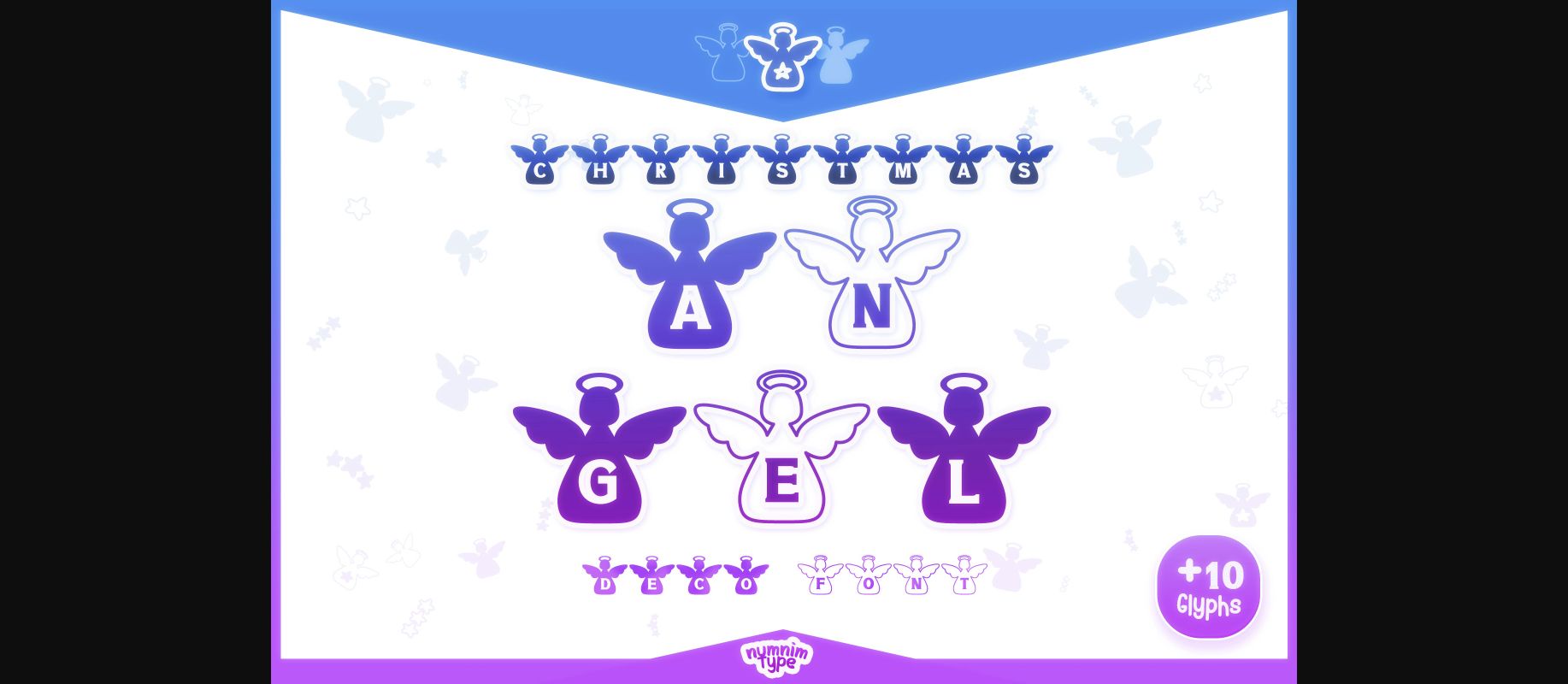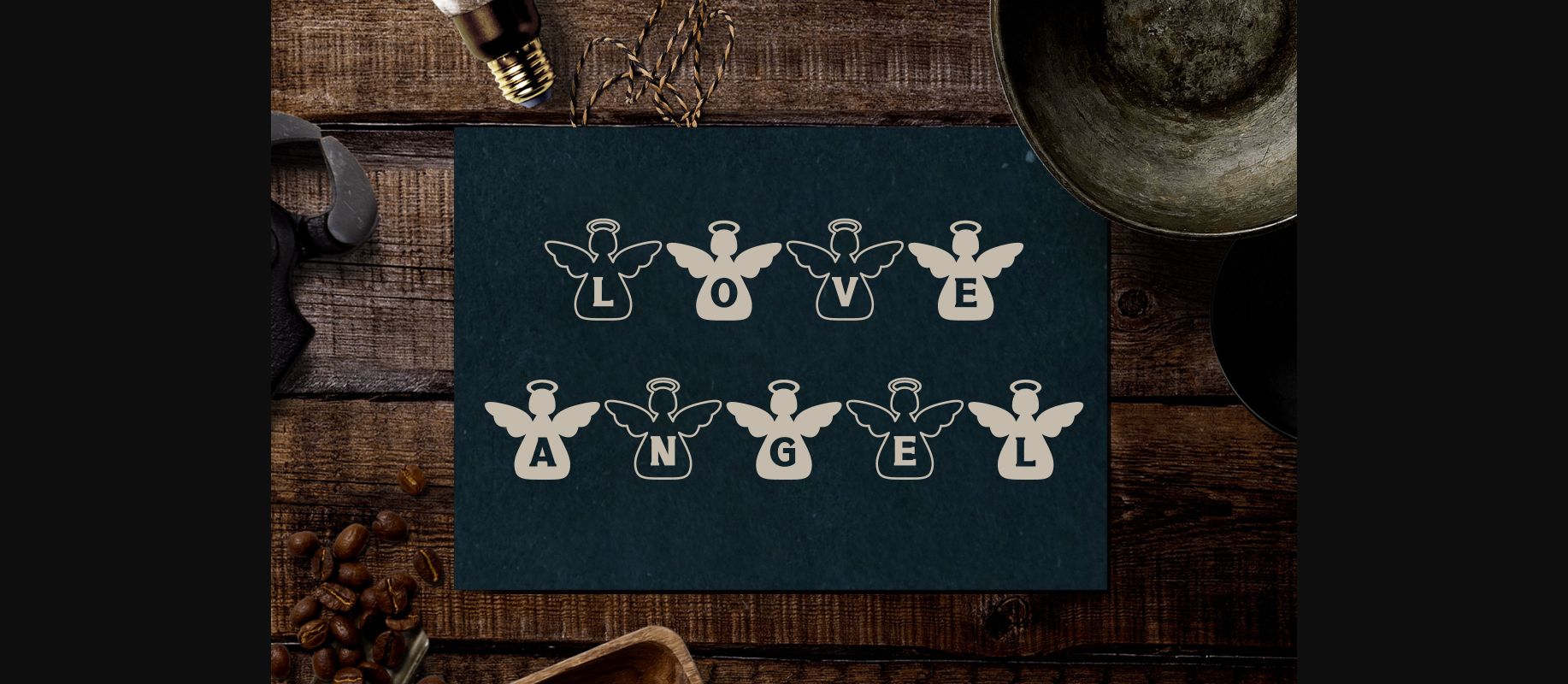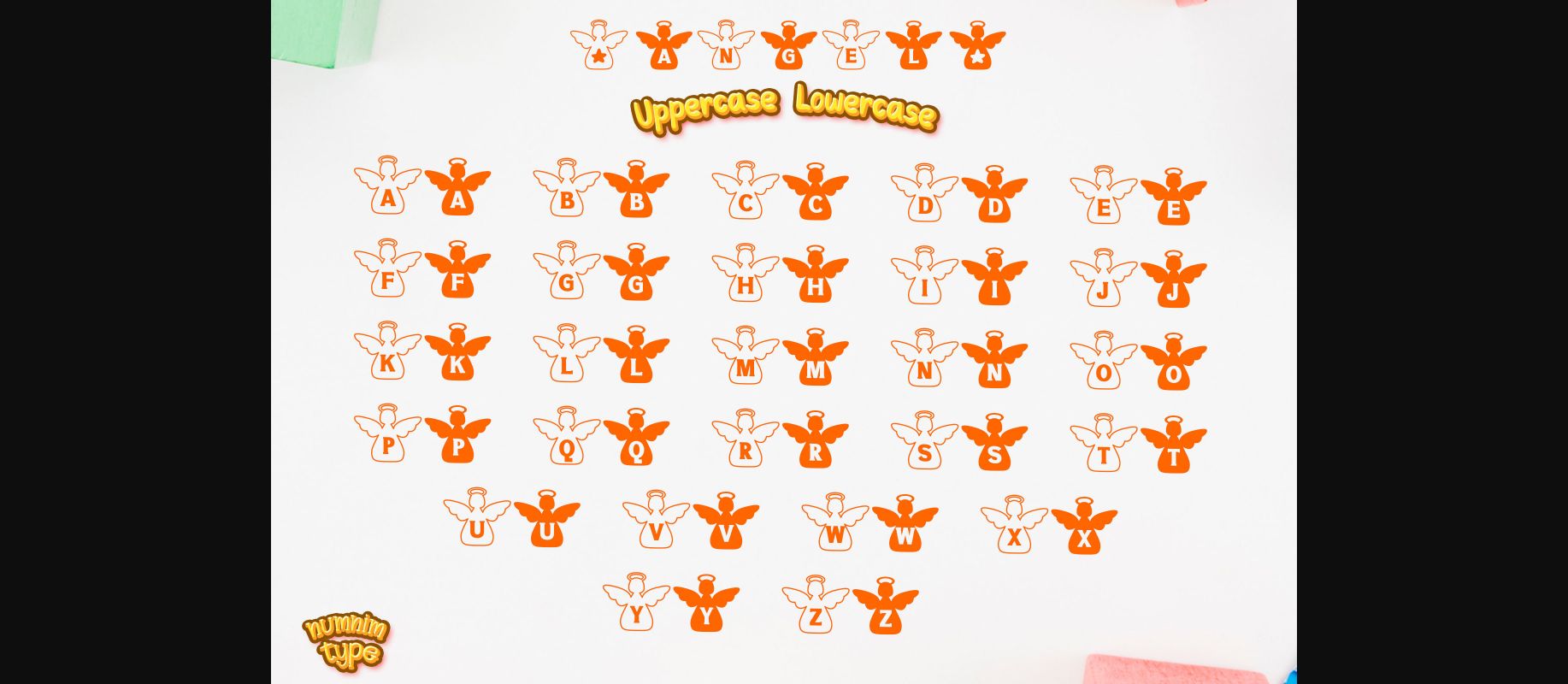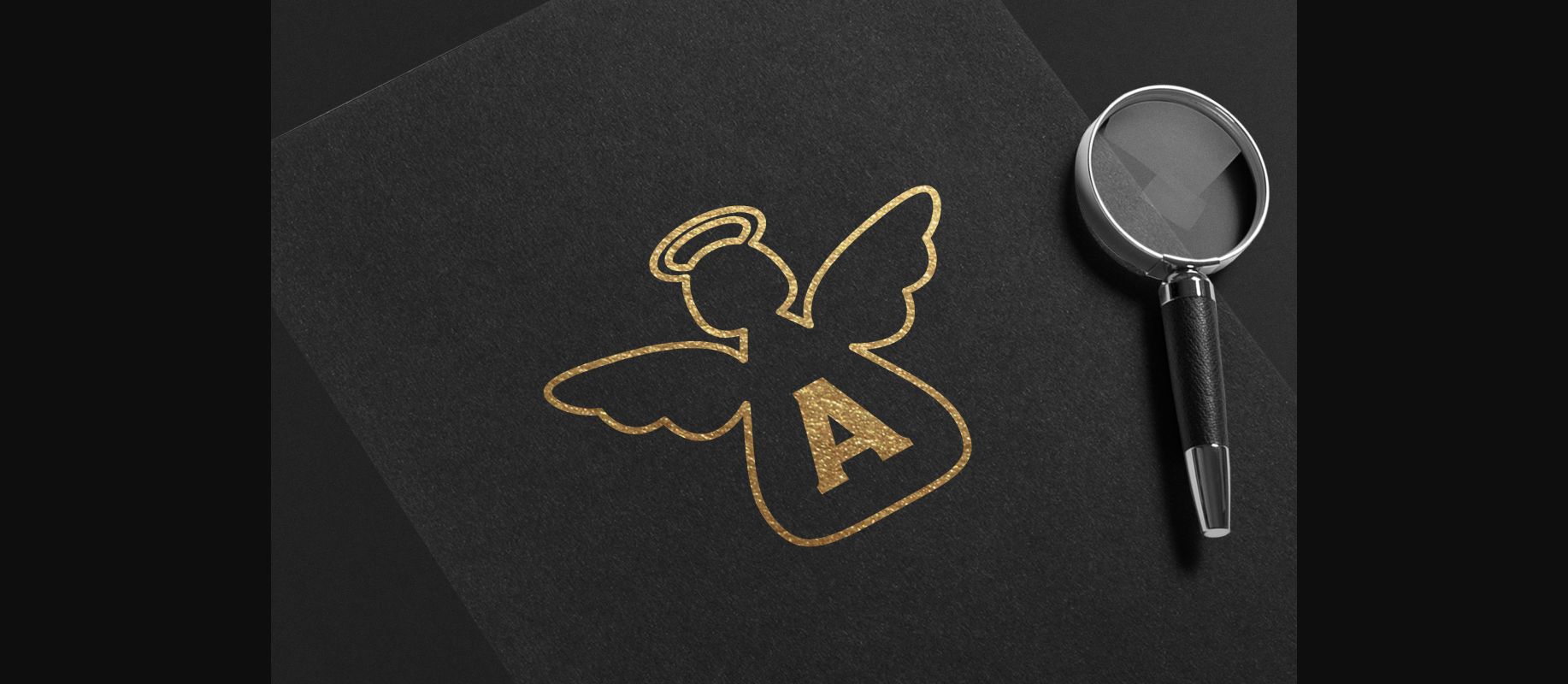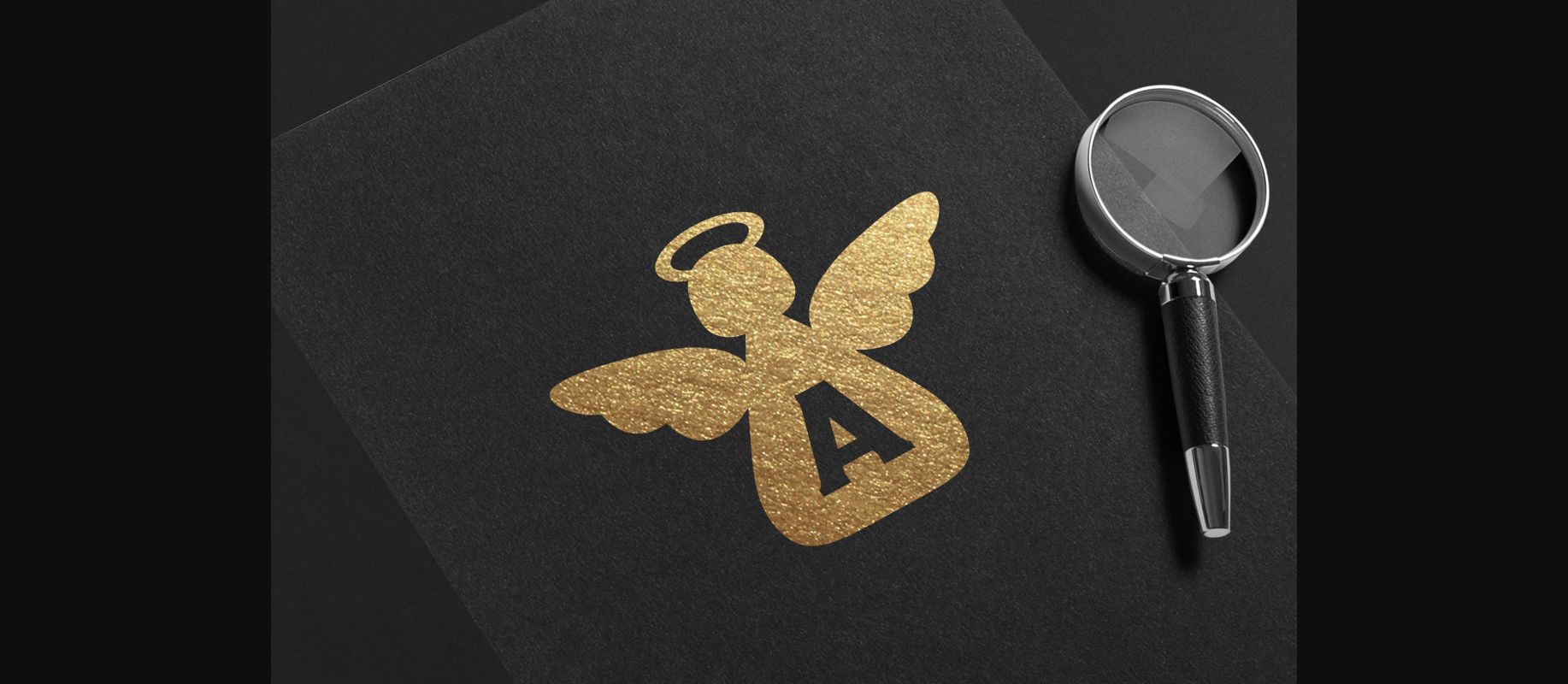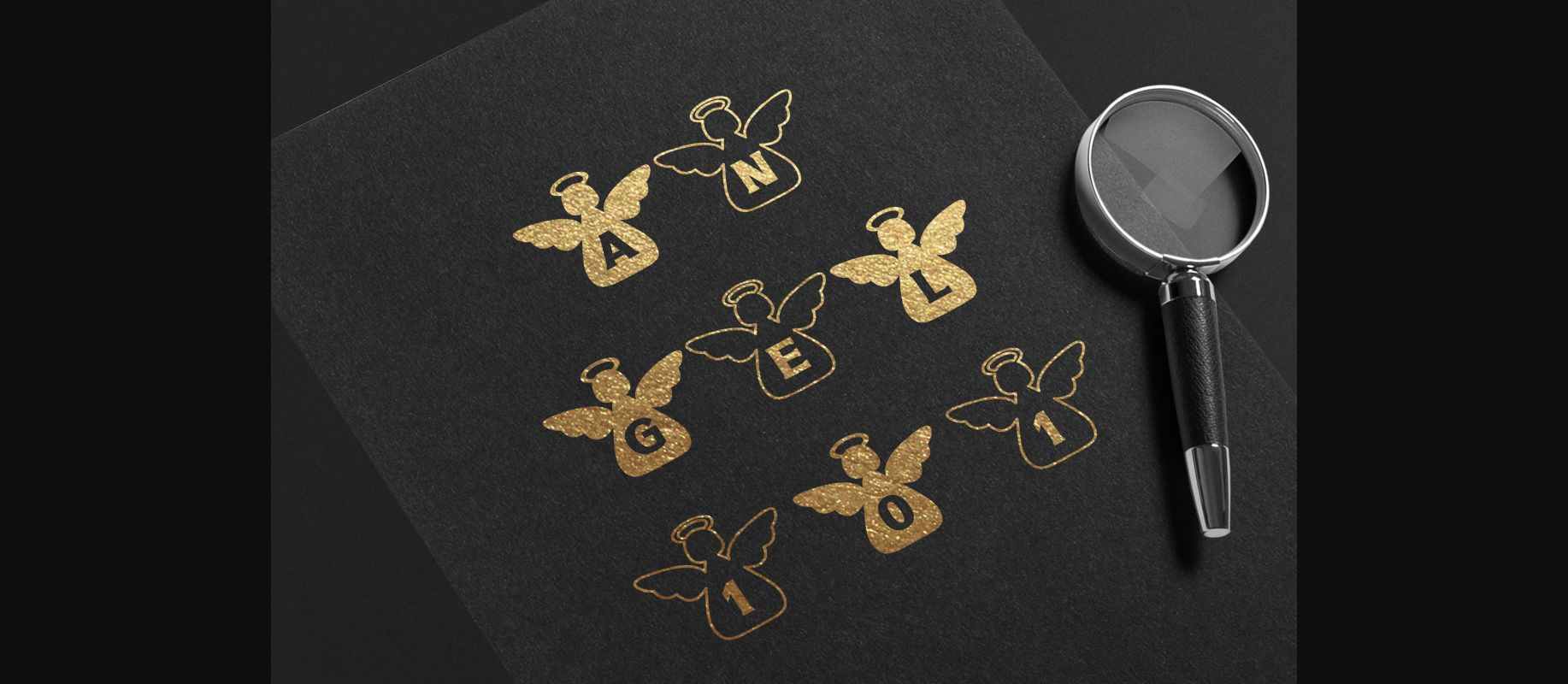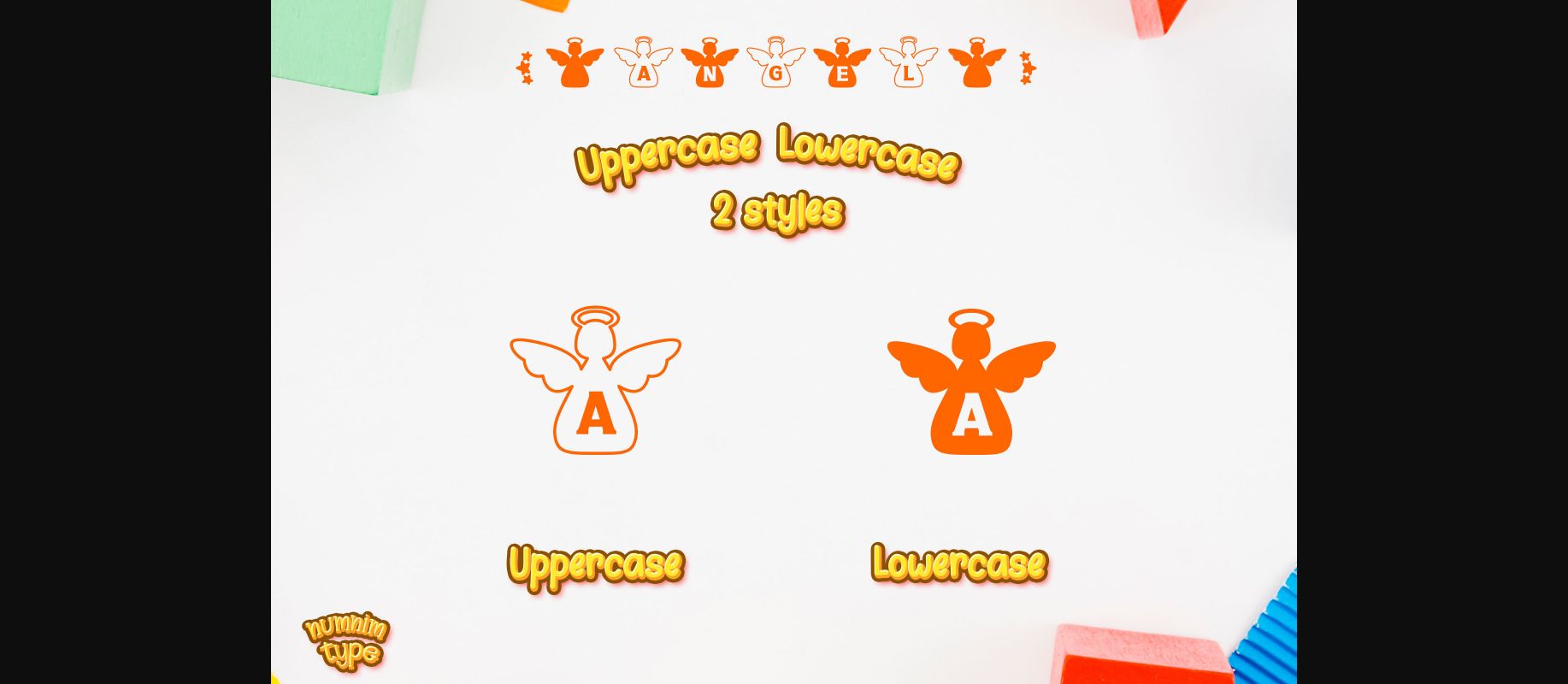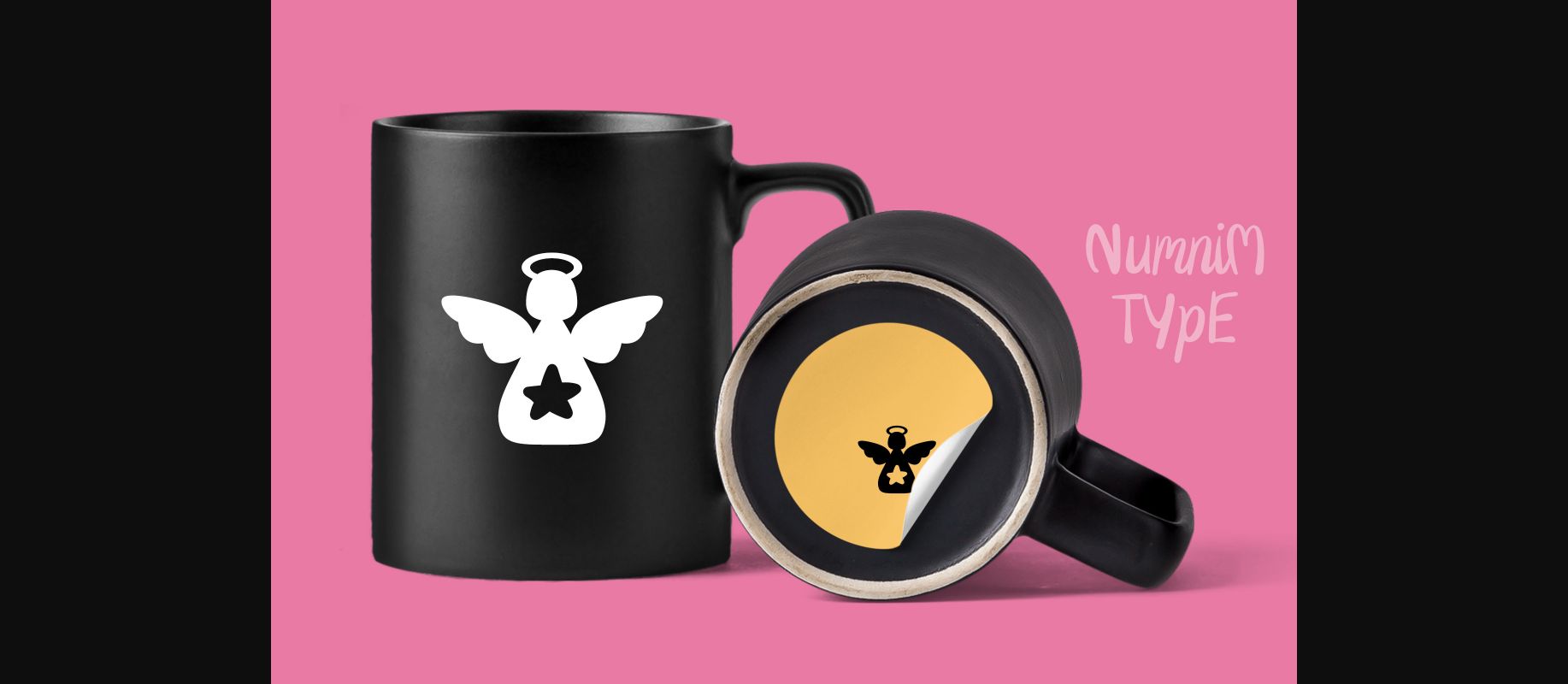
Christmas Angel Font
About Christmas Angel Font
Christmas Angel is a cool and uniquely designed decorative font, created particularly for the Christmas Day. The characters are fun and playful, perfect for adding a bold accent to your designs!